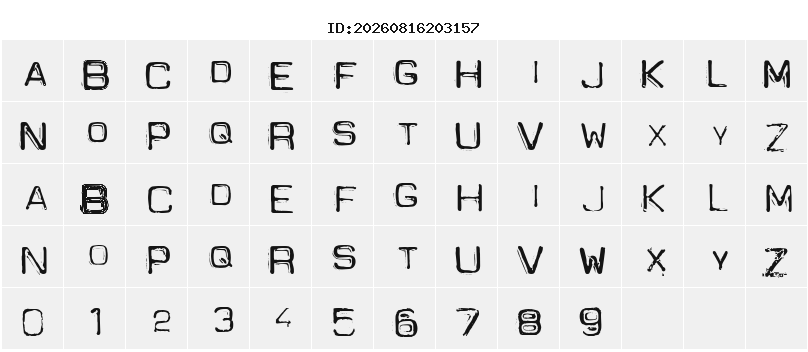
Spacesuit Preview
• Font Name: Spacesuit
• Full Font Name: Spacesuit
About Spacesuit.ttf
Spacesuit.ttf is a modern, elegant sans-serif font designed for ultimate readability and visual harmony. Perfect for branding, headlines, web design, and print materials.